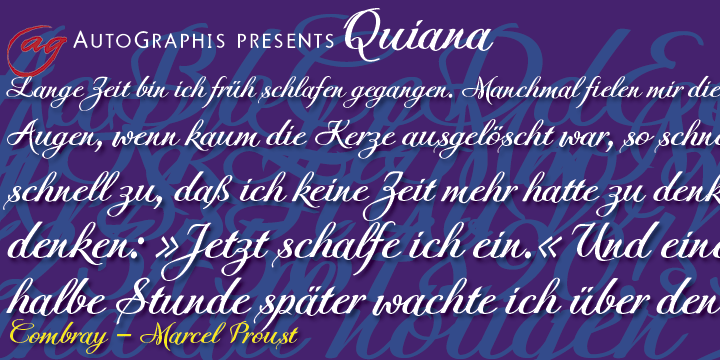
Quiana
Font Family by Autographis
Quiana is a very elegant joining Script that has ? because of its high and open lowercase letters ? excellent readability.
It has a slim twin called Quirina.